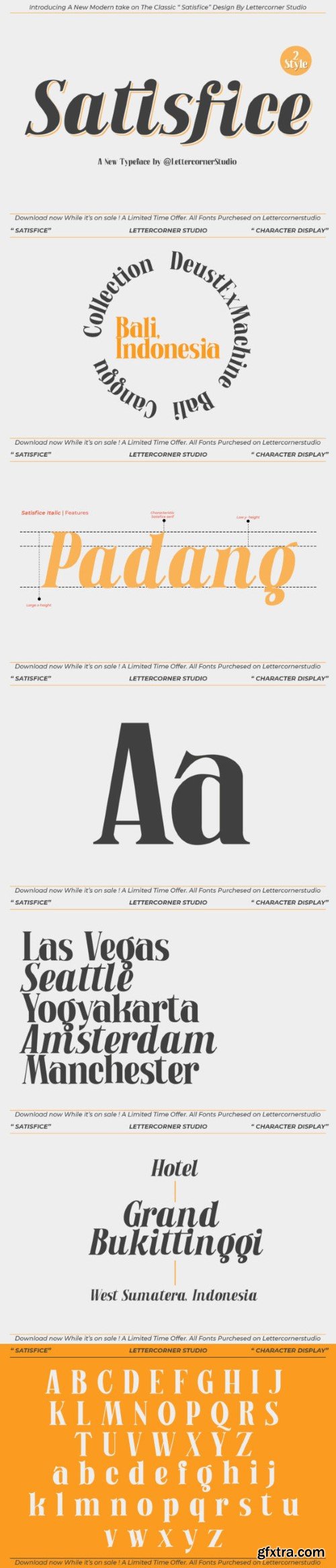
satisfye Font
Satisfice is an exquisite, vintage-inspired, and striking typeface. This font exudes strength, confidence, and energy, infusing your designs with a wealth of nostalgic charm.